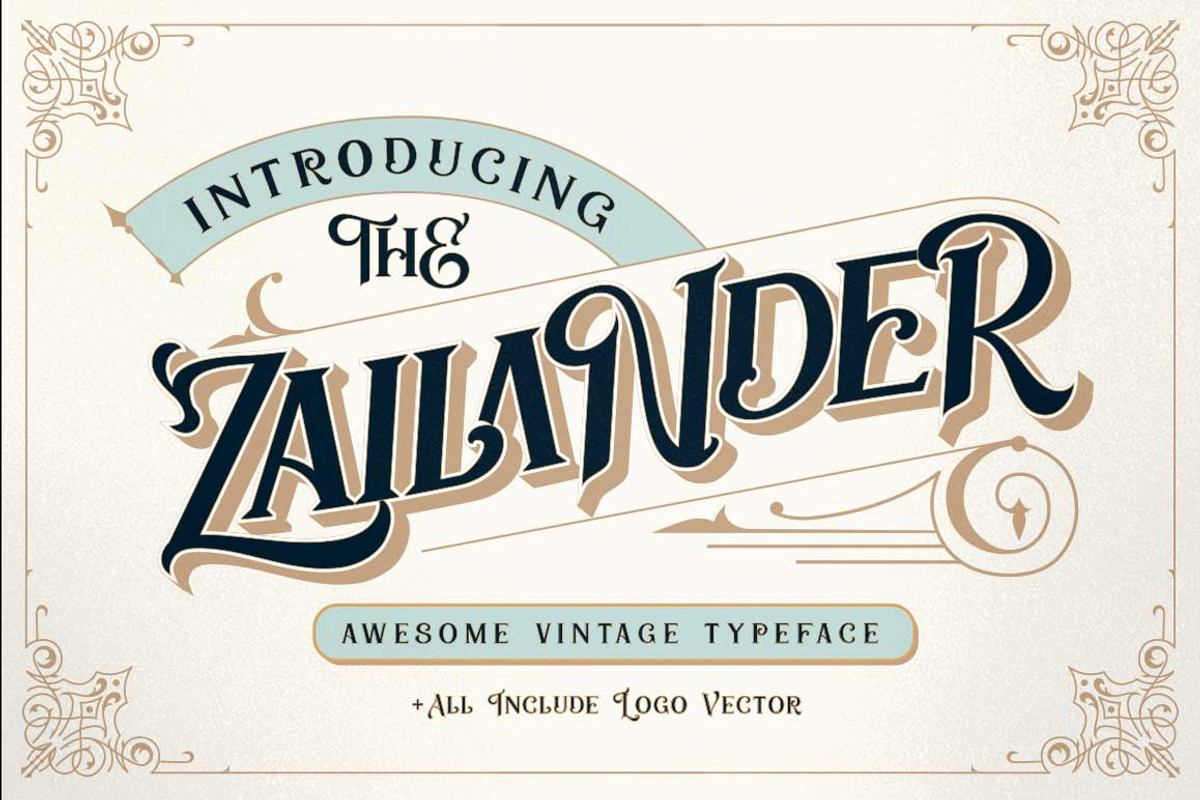
Zailander – Vintage Font + Logo Set Free Download is a bold, handcrafted typeface paired with a professionally designed logo pack—perfect for creating authentic vintage-style branding. Please note, you are required to purchase this font for commercial use. It is available for free download for testing and personal projects only.
With its strong serifs, rugged charm, and nostalgic feel, Zailander is ideal for barbershops, breweries, outdoor apparel, retro signage, and heritage-themed packaging. The included logo templates make it easy to build a cohesive and stylish brand identity in minutes.
By choosing Zailander – Vintage Font + Logo Set Free Download, you’re getting a complete branding toolkit that installs easily and works seamlessly across all major design platforms. Whether you're designing a bold label or crafting a vintage logo, Zailander brings timeless character and handcrafted appeal to every project.